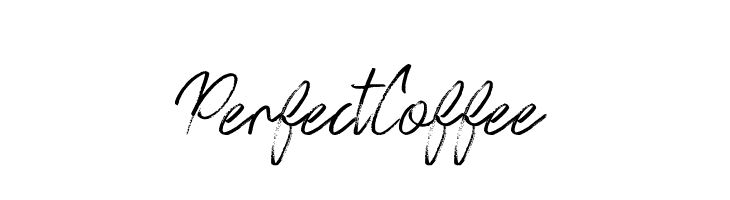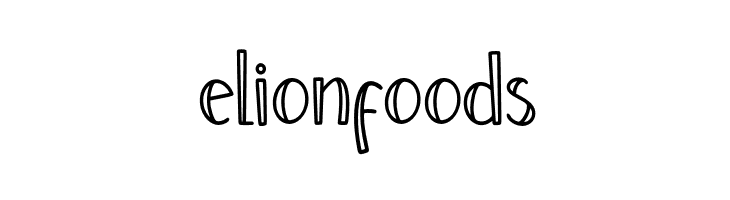
A bold, italicized font with a modern and dynamic style.
A playful, whimsical font with tall, narrow letters and consistent stroke width.
A dynamic, brush-style cursive font with artistic flair.
A bold, geometric font with a futuristic and edgy design.
A playful, modern font with rounded edges and consistent stroke width.
A graceful, cursive script font with an elegant, handwritten style.